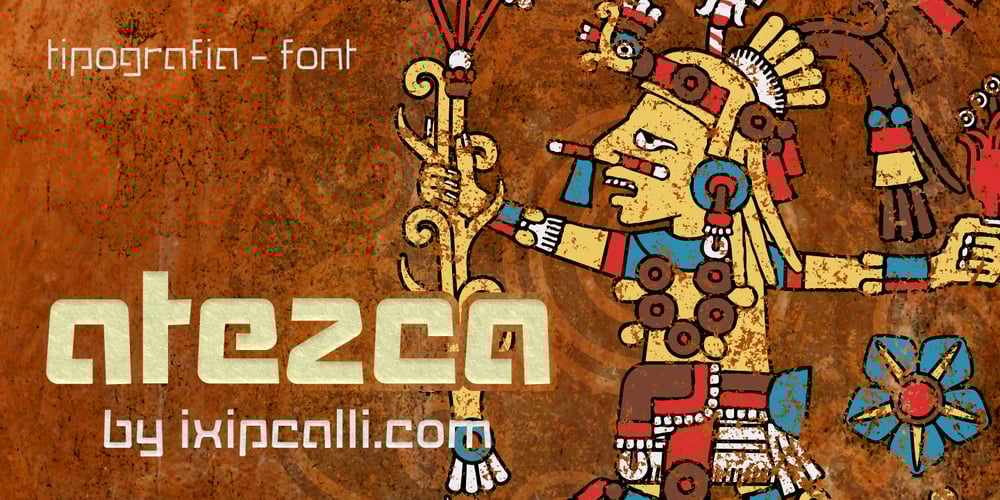
Atezca
Atezca font
Atezca Font Family was designed by Francisco Arellano and published by Ixipcalli. Atezca contains 6 styles and family package options. Atezca is a typeface inspired by the pre-Columbian Mesoamerican style of central Mexico. Although it does not display the classic Greek motifs of Mexican designs, its square, straight, geometric and technological style is perfectly suited to be used in projects where a formal or informal visualization is required. This typeface has three weights (light, regular and bold) along with its italic appearance styles. Thus adding up to a total of six styles.